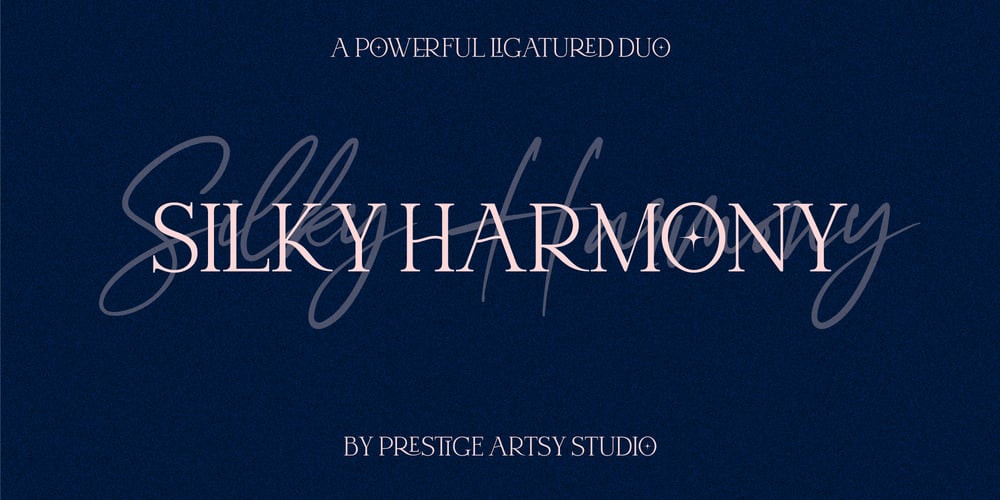
Silky Harmony Font Family was designed by Zak M and published by Prestige Artsy Studio. Silky Harmony contains 2 styles and family package options. Introducing Silky Harmony Duo, a luxurious duo font an all caps font with a bewitching modern script font. The duo was specifically designed for modern projects, made to match perfectly together. Silky Harmony serif comes in with lots of elegant ligatures to embellish and compliment the handwriting font. Silky Harmony Duo works great in movie posters, stationery, digital assets, logos, quotes and much more…Supported Languages: Bosnian, Catalan, Czech, Danish, German, English, Spanish, Estonian, Finnish, French, Irish, Croatian, Hungarian, Icelandic, Italian, Lithuanian, Latvian, Maltese, Dutch, Norwegian, Polish, Portuguese, Romanian, Slovak, Slovenian, Albanian, Swedish, Turkish